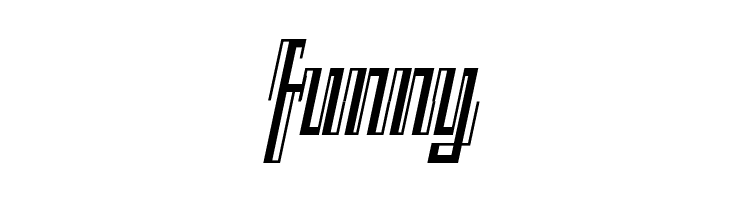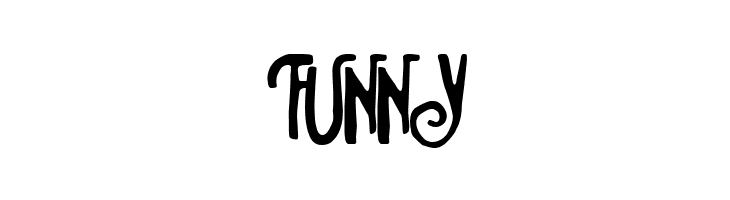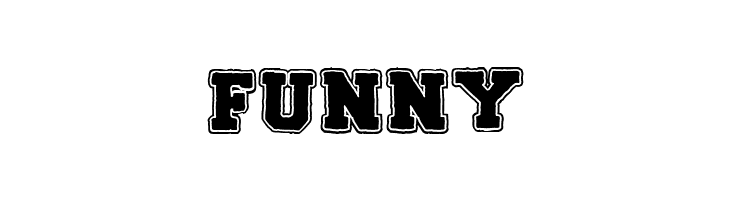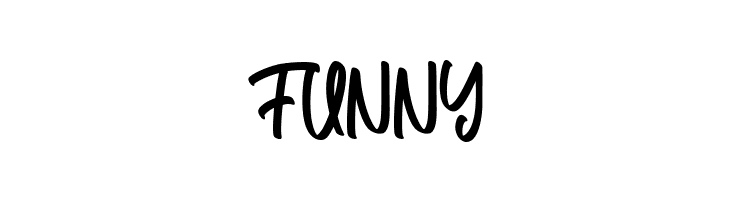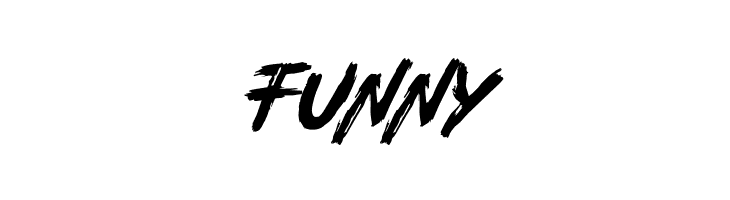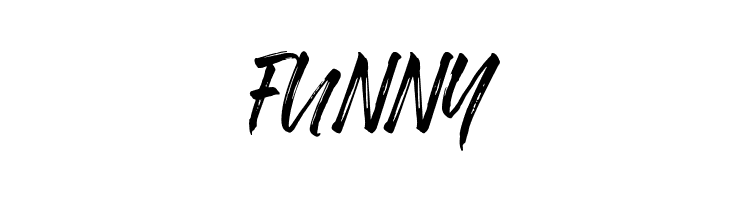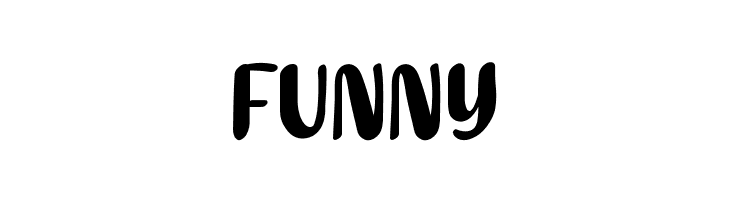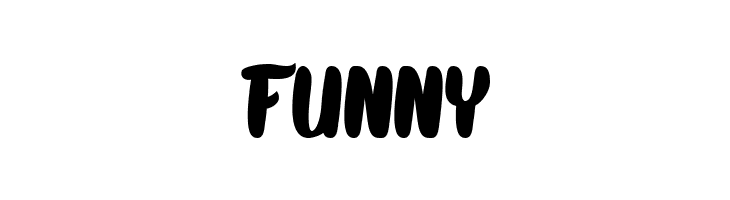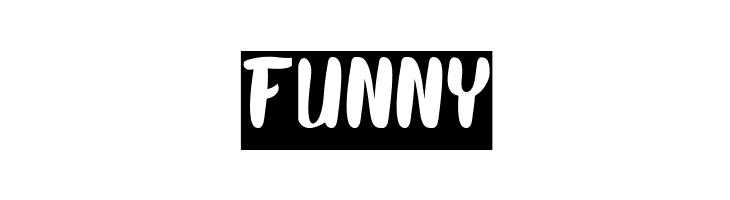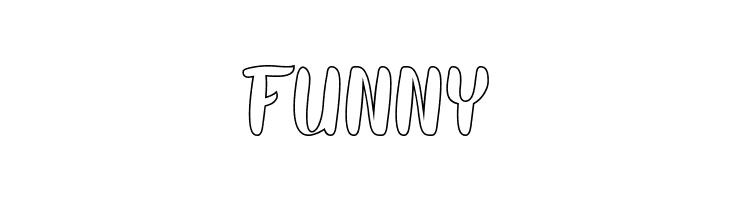
A lively, flowing script font with elegant loops and a natural handwriting style.
A modern, geometric font with a futuristic and sleek design.
A fluid and elegant script font with a modern calligraphic style.
A bold, expressive script font with fluid, dynamic strokes.
A playful, handwritten font with rounded edges and dynamic strokes.
A playful, bold font with circular shapes and dot accents.
An elegant, flowing script font with smooth, cursive letterforms.
A playful and elegant script font with flowing cursive letters.
A charming and elegant script font with flowing, cursive letters and bold numerals.
A graceful script font with flowing, cursive strokes and elegant loops.
A playful, handwritten font with smooth, rounded edges and a casual flow.
A playful, rounded font with a hand-drawn, whimsical style.
A playful and elegant script font with smooth, flowing curves.
A playful and elegant script font with flowing, cursive letters.
A charming and elegant script font with playful, whimsical curves.
A flowing, cursive script font with elegant, interconnected letters.
A delicate, handwritten script font with flowing, connected letters.
A bold, dynamic brush script font with energetic strokes and expressive flair.
A bold, brush-style font with dynamic and expressive strokes.
A bold, three-dimensional font with a retro, blocky style and shadow effects.
A bold, three-dimensional font with dynamic shadow effects.
A lively and expressive script font with flowing, cursive letterforms.
A bold, graffiti-inspired font with a playful, hand-drawn style.
A playful, rounded font with bold curves and a friendly appearance.
A playful, bold, and hand-drawn style font with rounded edges.
A playful, casual handwritten font with smooth, rounded edges.
A geometric, maze-like font with bold, intersecting lines and a modern, architectural style.
A bold, italicized font with a modern, futuristic design.
A bold, expressive script font with elegant curves and fluid connections.
A bold, elegant script font with flowing curves and high contrast.
A lively handwritten font with fluid strokes and a casual style.
A bold, playful script font with a handwritten feel.
A bold, playful font with a hand-drawn, rounded style.